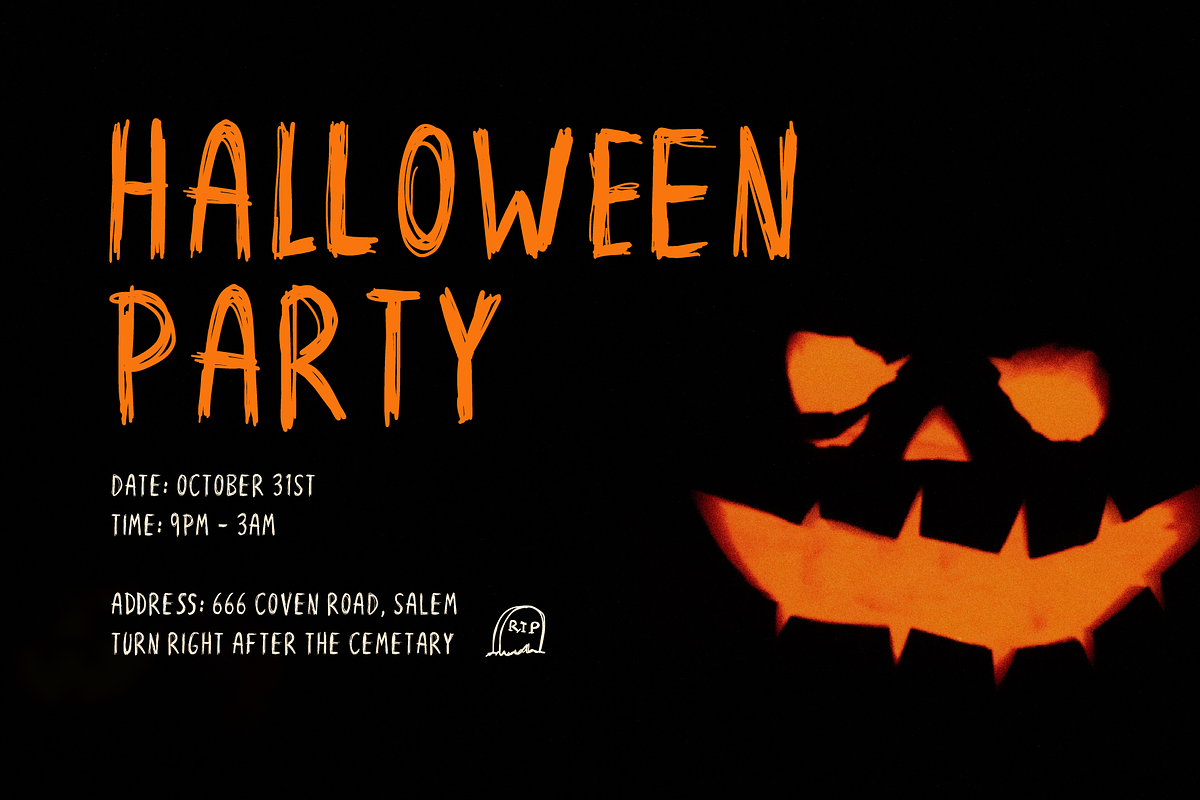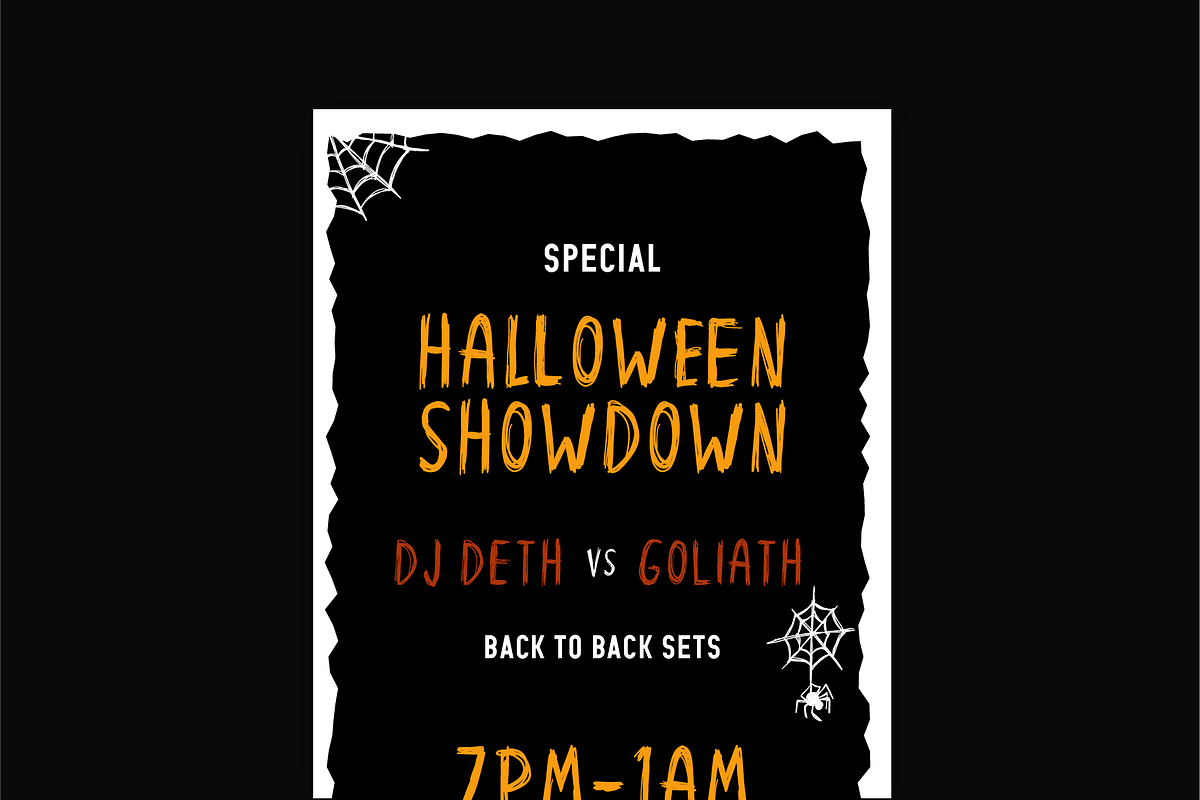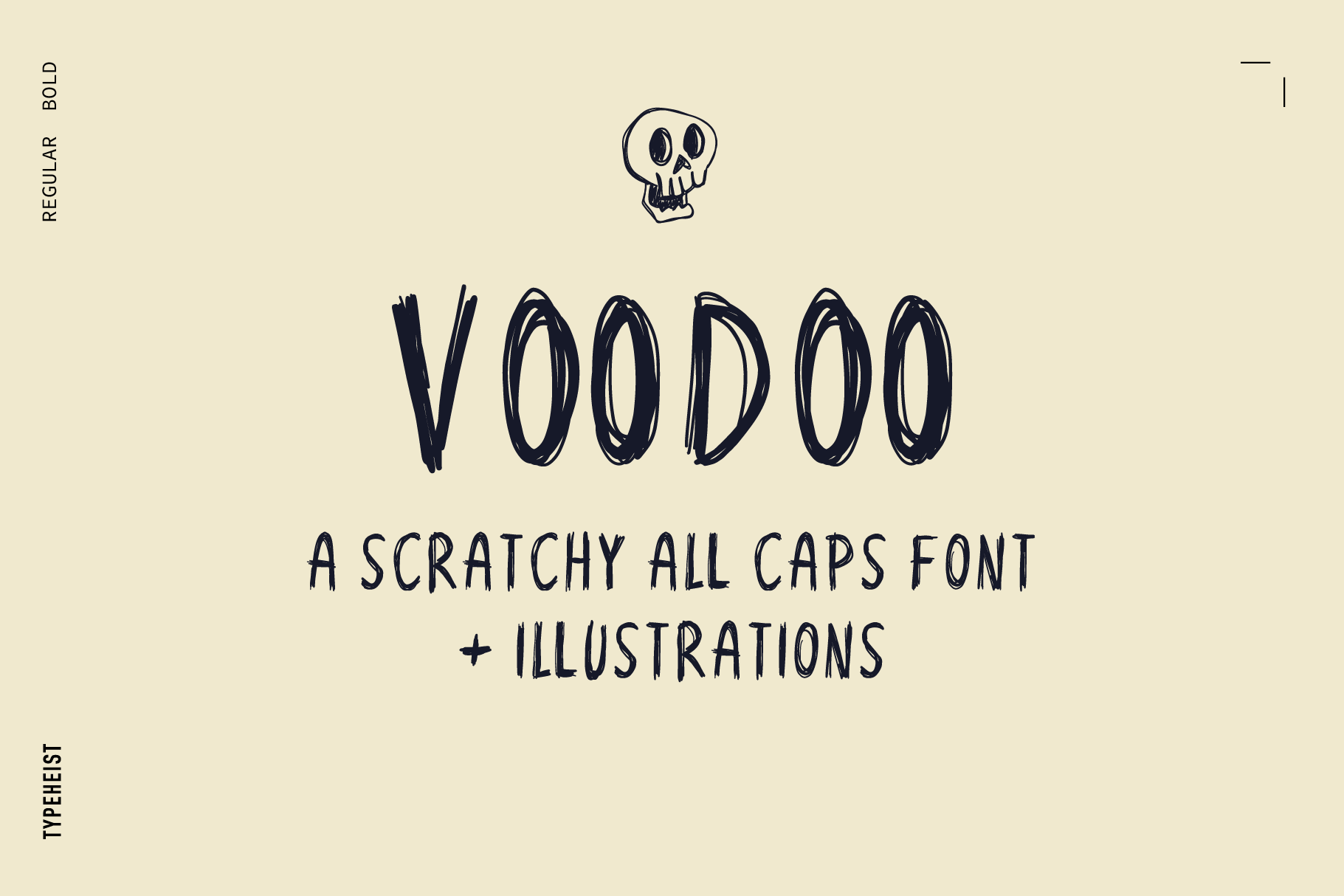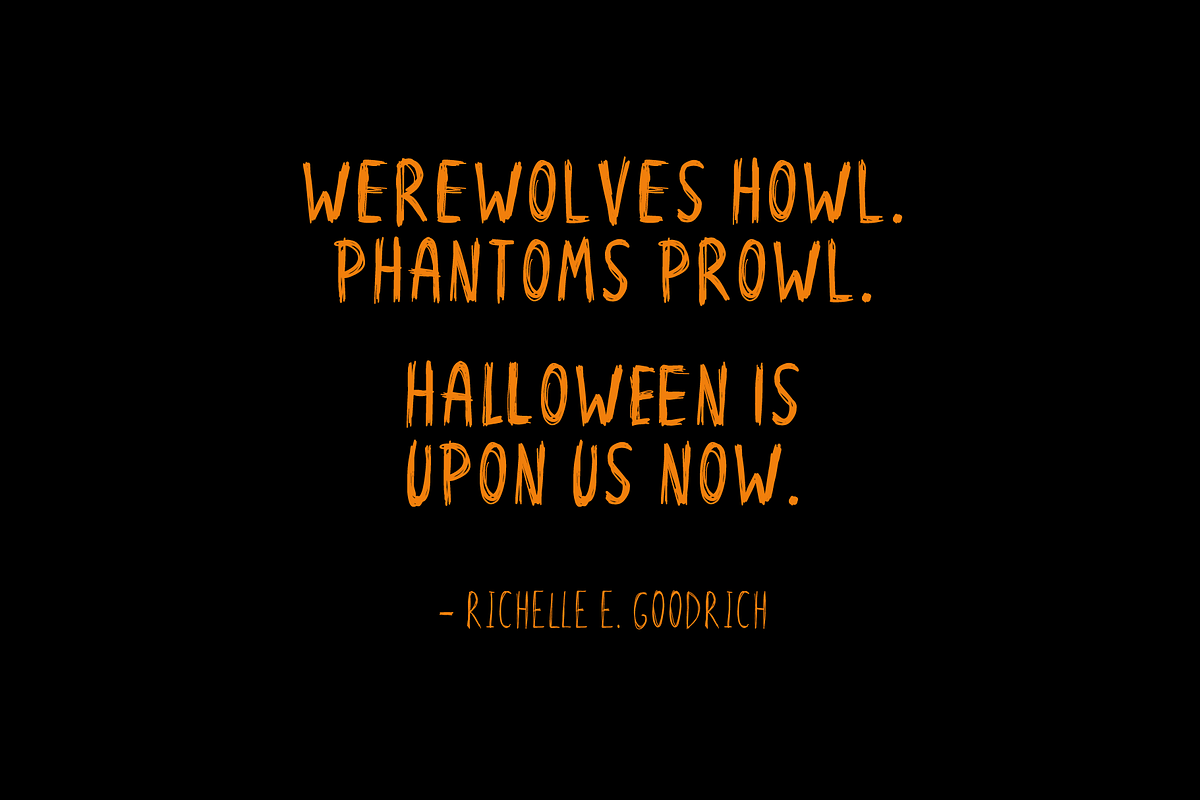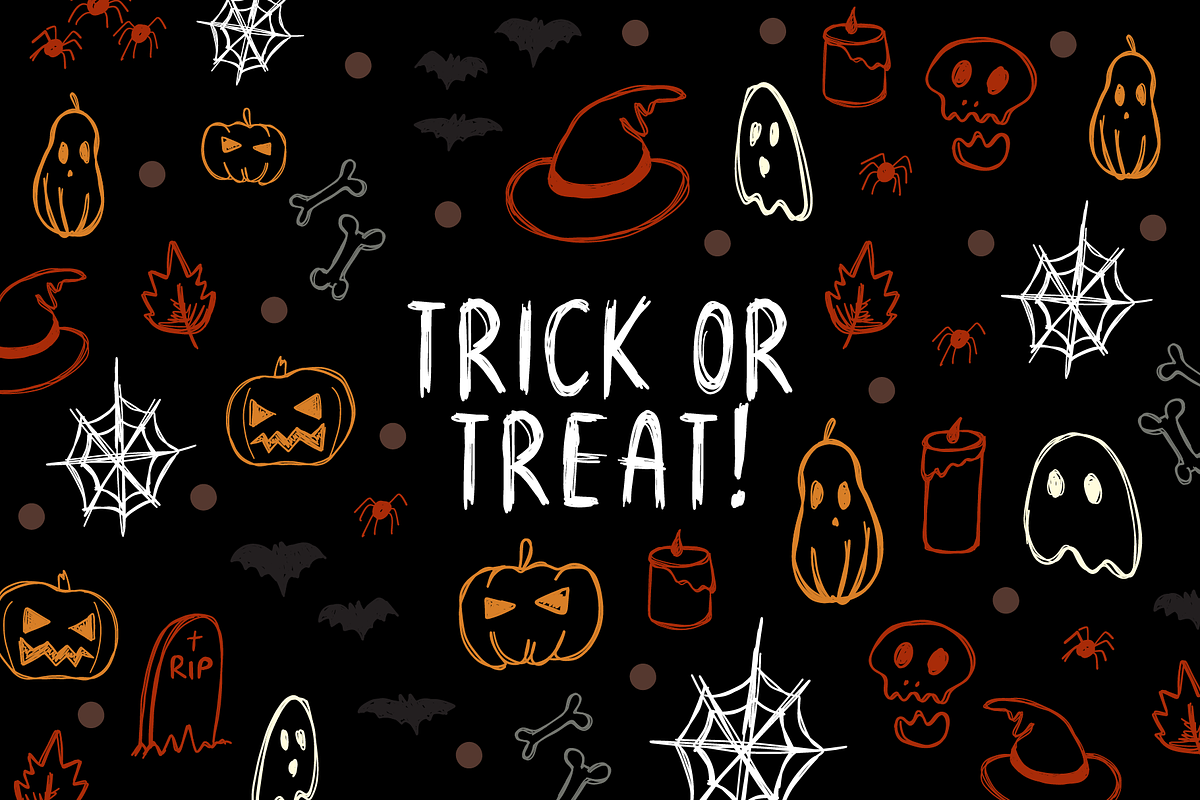
VOODOO Scratchy Halloween Font
A scratchy, scribbled and all caps Halloween font, just in time for you to get spooky.
Voodoo includes 40+ matching scribble illustrations (voodoo dolls spiders, ghosts, skulls and more).
VOODOO Regular & VOODOO Bold
VOODOO Embellishments